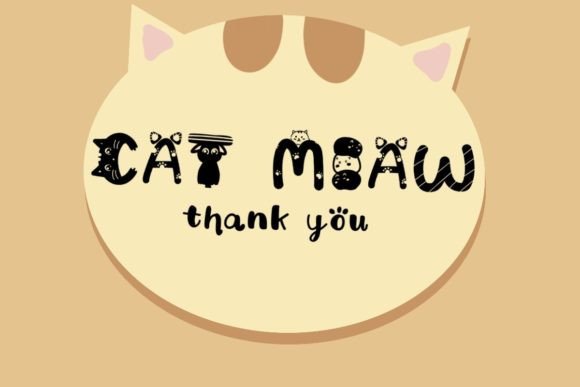
The Purrfect Font: How Cat Miaw Can Elevate Your Designs
I’ll never forget the time I was working on a branding project for a cat cafe, and I just couldn’t find the right font to capture their playful and whimsical vibe. That’s when I stumbled upon Cat Miaw, a font that combines a cat with a letter to give it an irresistible cuteness, playfulness, and fun. In this article, I’ll share my experience with Cat Miaw, its features, and how to use it in various design platforms.
An Honest Review of Cat Miaw
What I Love About Cat Miaw ✨
- Unique and playful design that adds a touch of whimsy to any project
- Highly versatile and can be used for various design applications, from branding to crafting
- Easy to read and understand, even in smaller font sizes
- Supports OpenType features, glyphs, and stylistic alternates for added creativity
While Cat Miaw is an amazing font, there are a few things to keep in mind:
- Some characters may not be suitable for formal or professional designs 🤔
- Limited availability of font weights, which may not be ideal for certain design applications
The Backstory of Cat Miaw
Cat Miaw was designed by a talented font creator who wanted to capture the playful and affectionate nature of cats. The font was inspired by the joy of watching cats play and the cuteness of their little meows. Today, Cat Miaw is a popular font among designers and crafters who want to add a touch of whimsy to their projects.
Q: What type of designs is Cat Miaw best suited for?
A: Cat Miaw is perfect for designs that require a playful and whimsical touch, such as branding for pet-related businesses, crafting, or children’s books.
Q: Is Cat Miaw available in multiple font weights?
A: Currently, Cat Miaw has a limited range of font weights, but the creator may release more weights in the future.